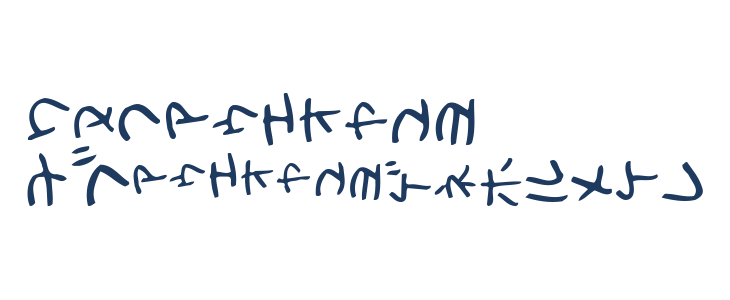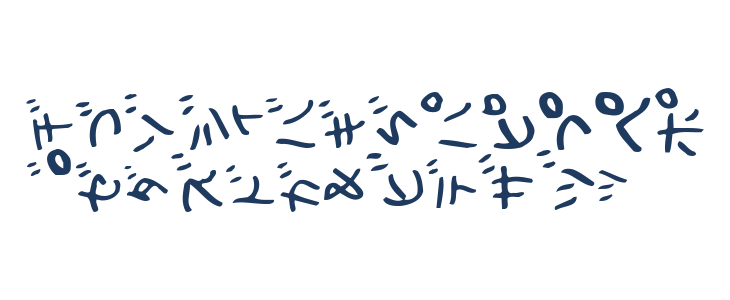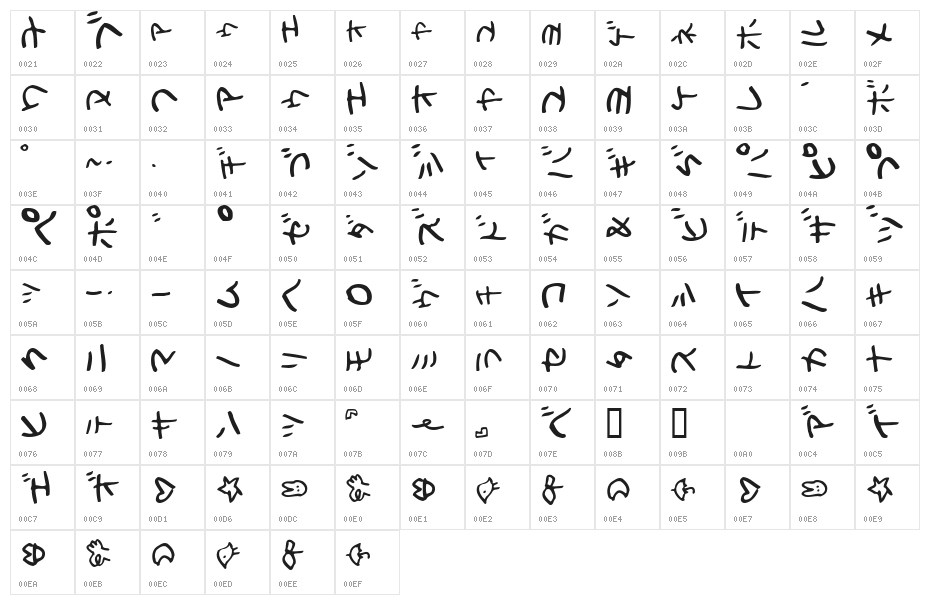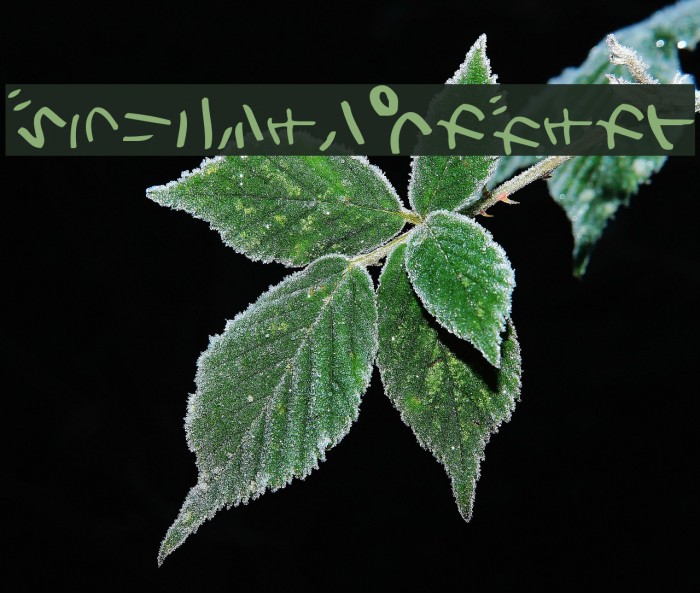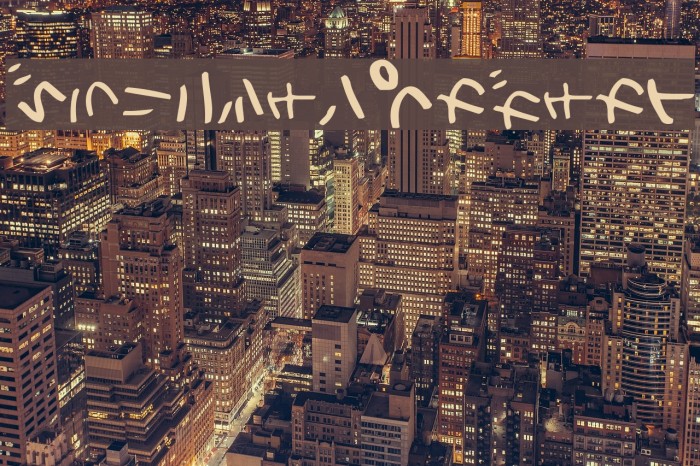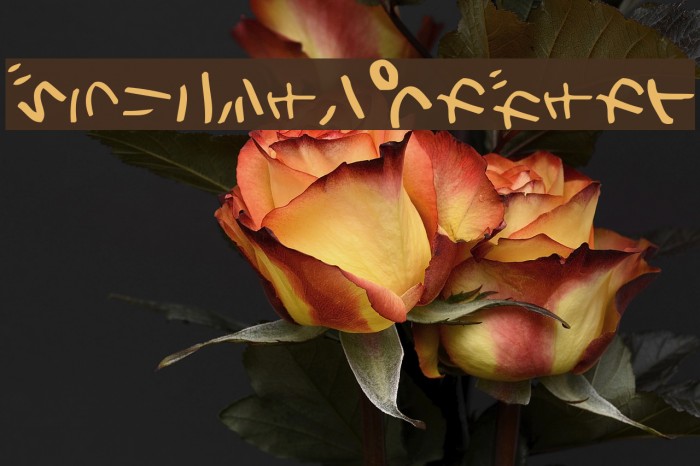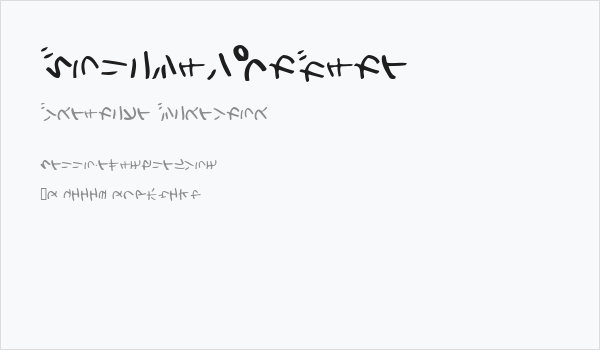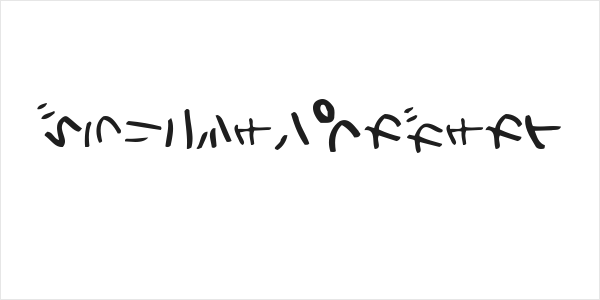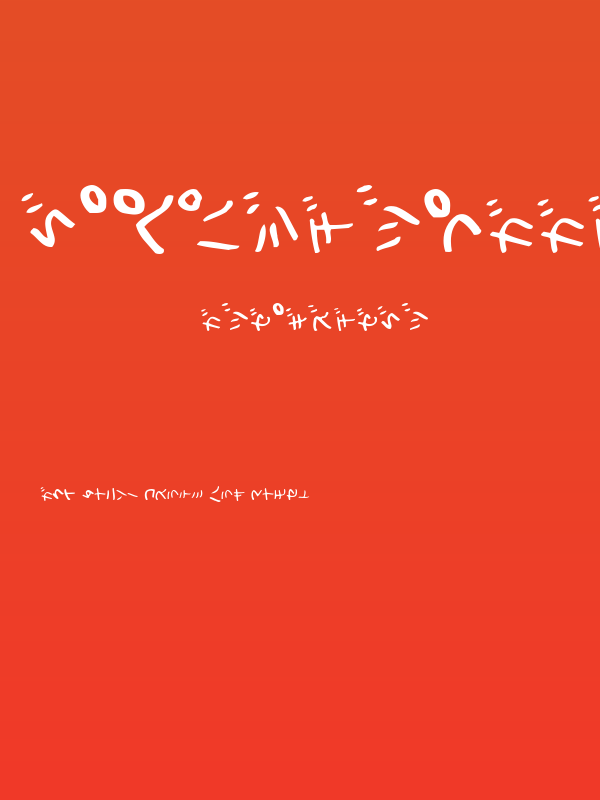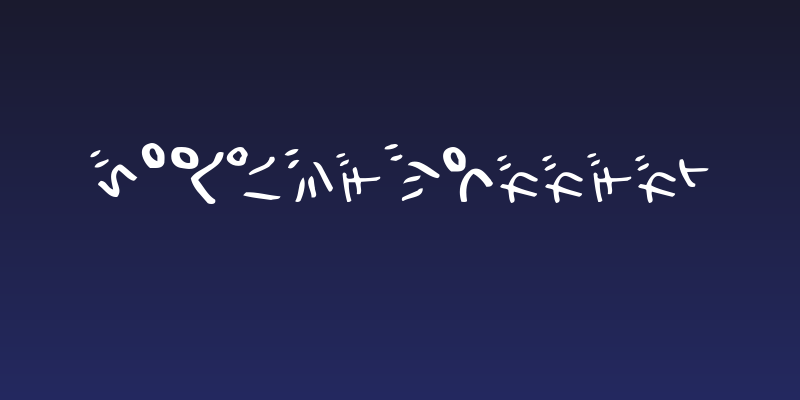
HolidayKtTate Font
HolidayKtTate Description
This design features a series of abstract, flowing symbols that resemble a form of artistic script. The characters are bold and dynamic, with a playful and whimsical style. Each symbol is unique, with varying strokes and curves that create a sense of movement and energy. The overall appearance is decorative and expressive, making it suitable for creative and artistic projects. The design does not follow traditional alphabetic structures, instead offering a more freeform and imaginative visual language.
| Use Case | Logos, Artistic designs, Creative branding |
| Proposed Projects | Ideal for artistic projects, abstract art pieces, creative branding, or decorative elements in design. |